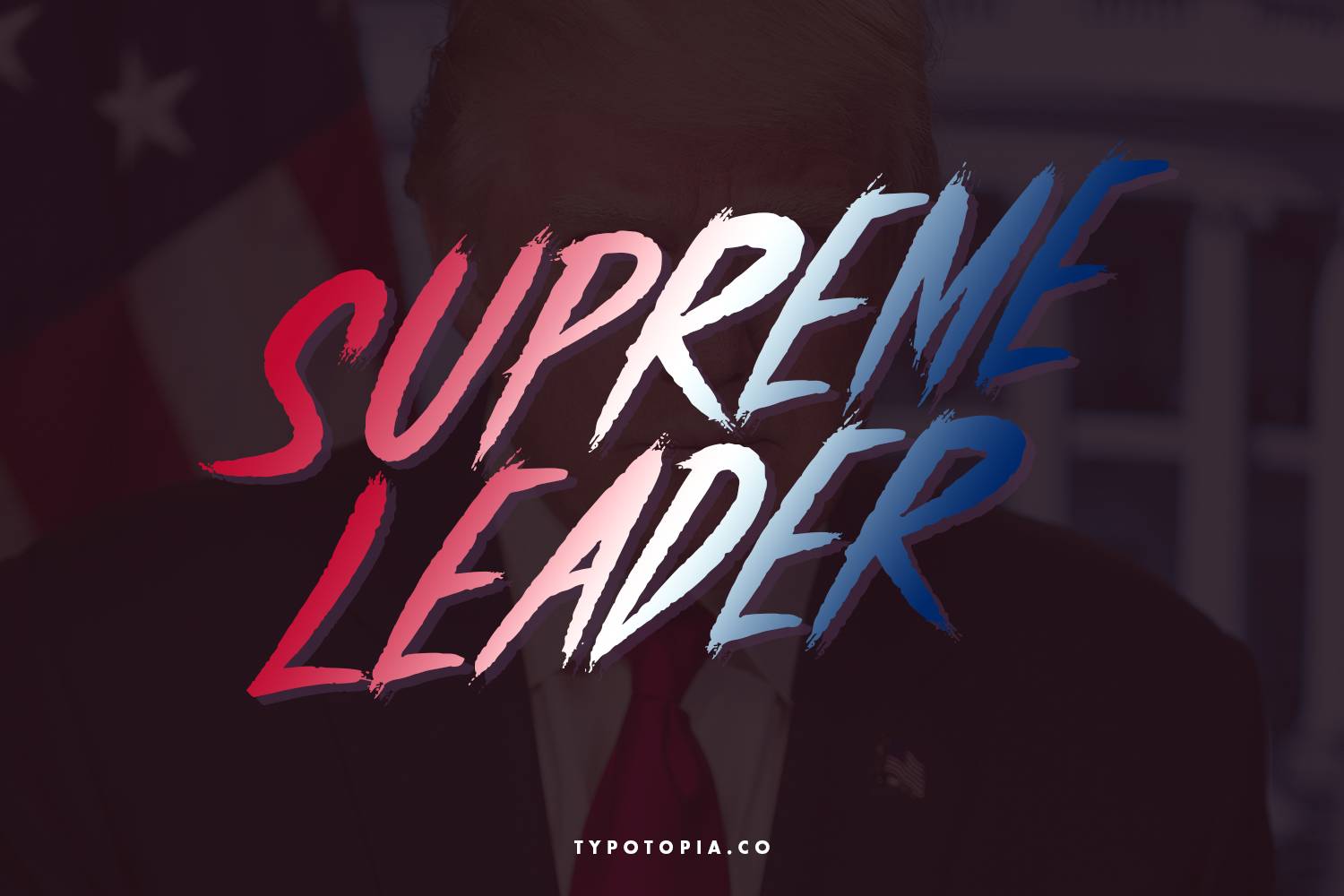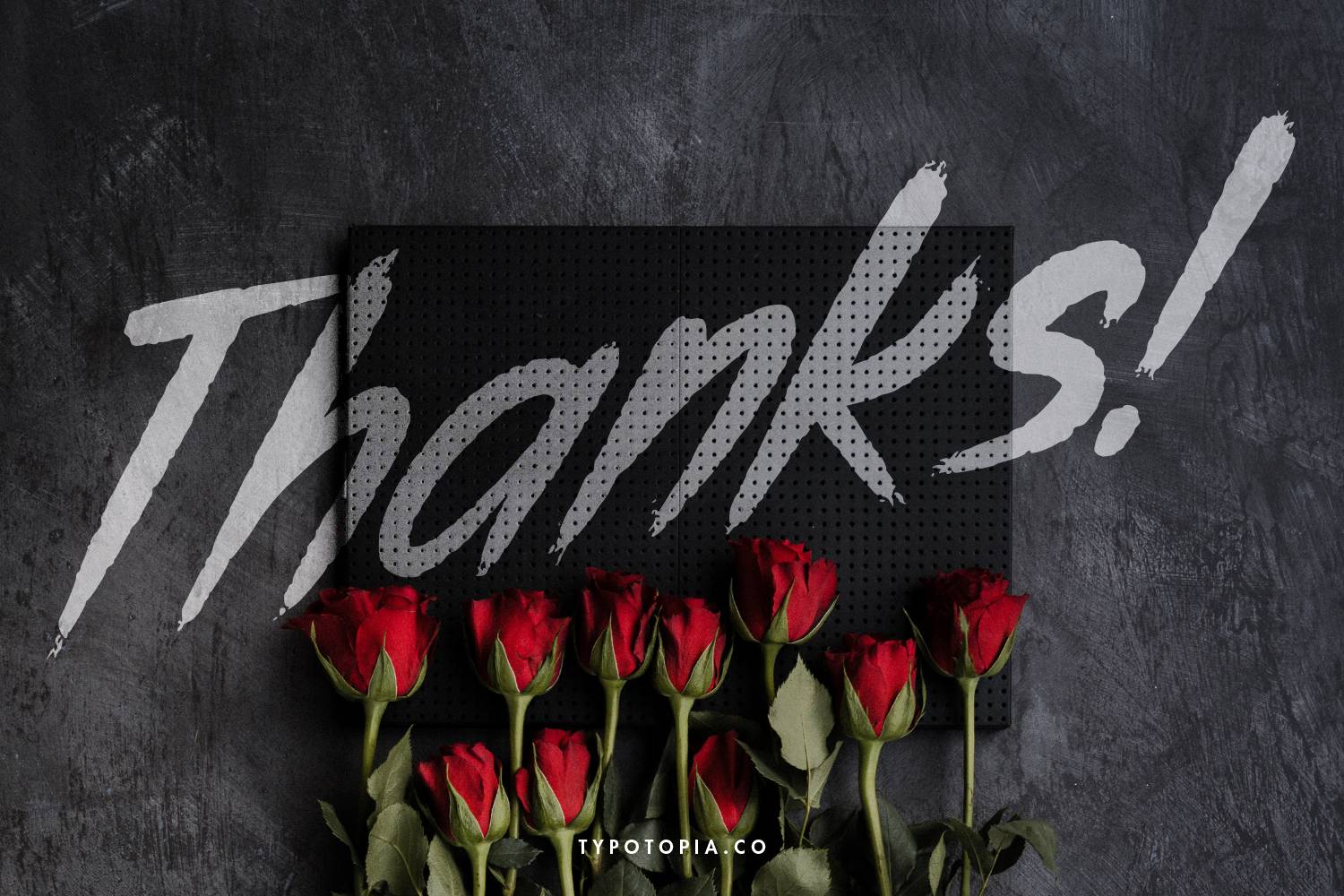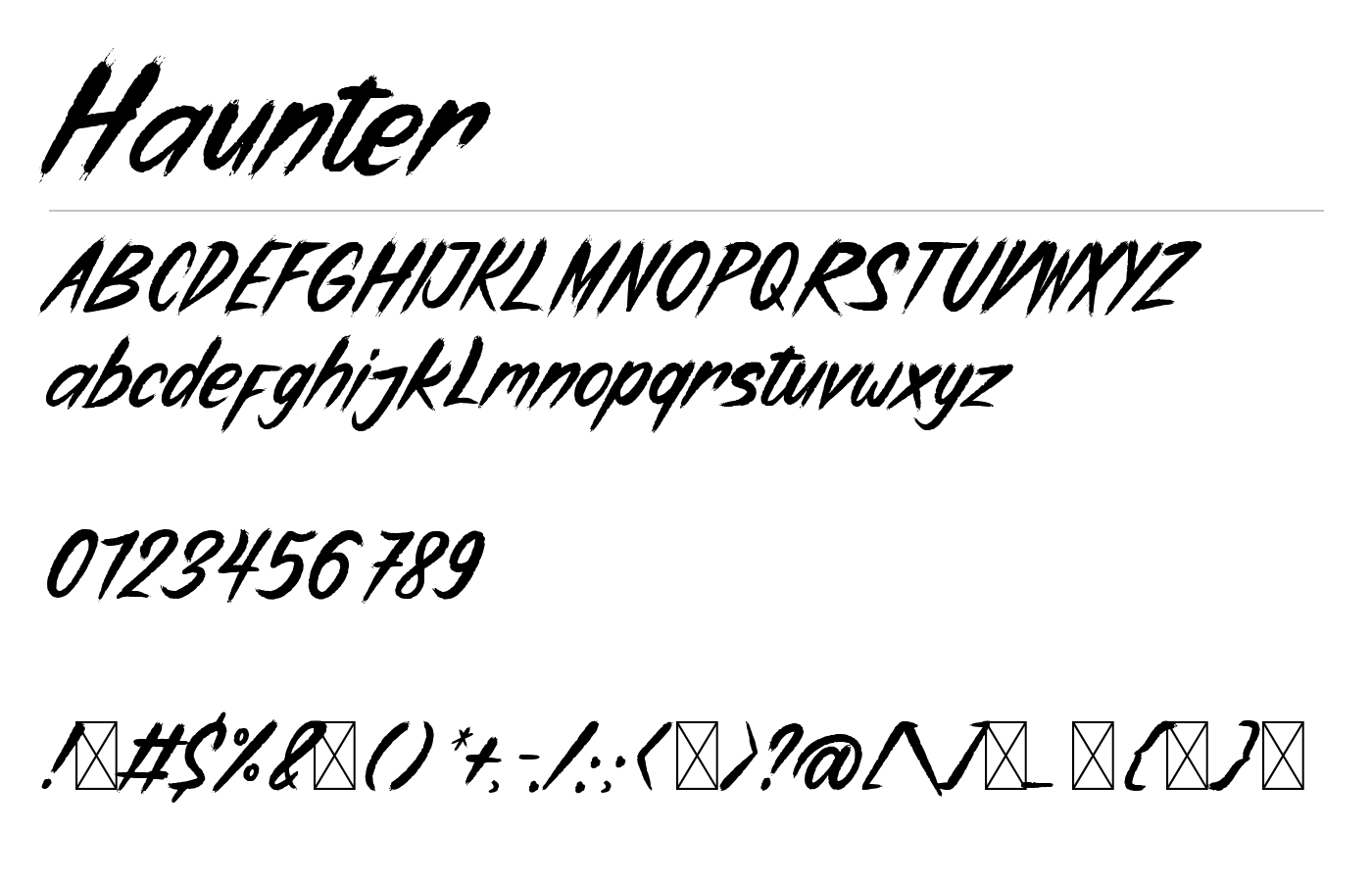
Haunter is a dynamic brush script font with a casual, hand-painted feel, characterized by its bold, textured strokes and slightly condensed letterforms. Its lively, expressive style brings an energetic and creative vibe, making it perfect for designs that aim to stand out with a personal and artistic touch. This font works especially well in headlines, logos, posters, and branding that demand a strong, informal, and modern look.
Haunter Font
About Haunter Font